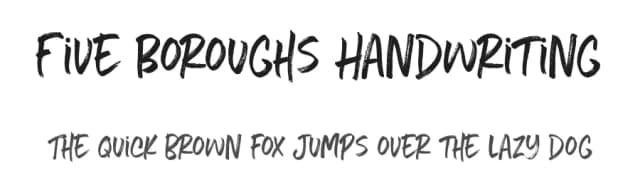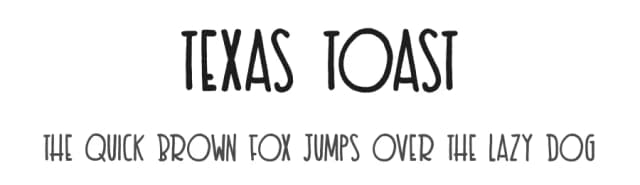
CC by MakeMediaCo. is a decorative collection of nine hand-drawn typefaces built for designers working on projects that demand fonts with genuine character and craft. The set brings together upright scripts with alternates, monoline handwriting, bold display faces, and lighter text fonts, each designed to pair with the others or stand alone depending on your layout requirements.
You'll find these fonts suit custom logo design, wedding invitation suites, boutique product packaging, and social media graphics where the handmade quality feels essential rather than excessive. The collection includes 65 hand-drawn vector illustrations and a set of ready-made logos you can customize in Illustrator, so you get both the typefaces and visual elements ready to layer together in your work. Several fonts come with alternates and ligatures accessed through a glyphs panel, letting you swap out letter combinations for visual variation without needing to redraw anything.
CC Font is a decorative font that shines as a display or heading face. Pair it with a clean sans-serif or serif font for body text β the contrast creates a clear hierarchy while the two styles stay balanced and easy to read.
CC Font
by MakeMediaCo.